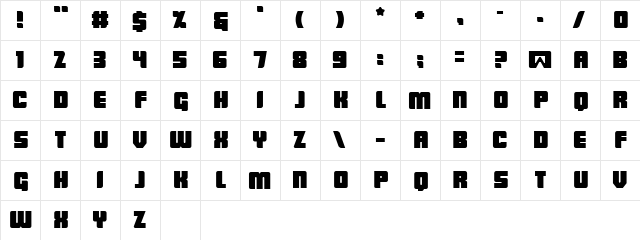
LowRider BB Regular
Design Context for LowRider BB Typeface
LowRider BB is a composed and adaptable typeface that performs quietly and consistently across a wide range of design contexts.